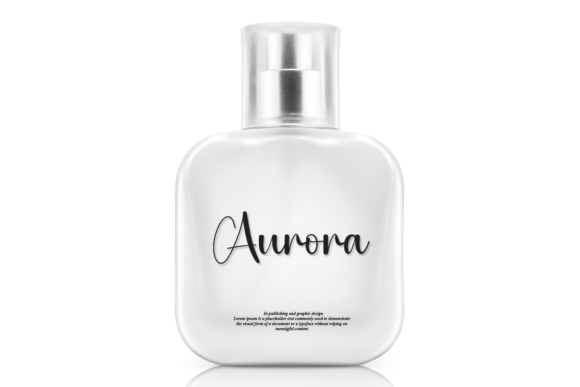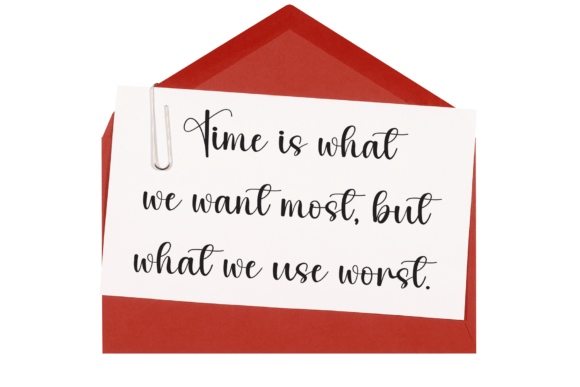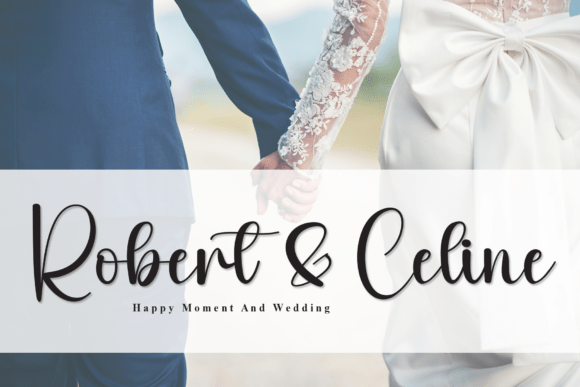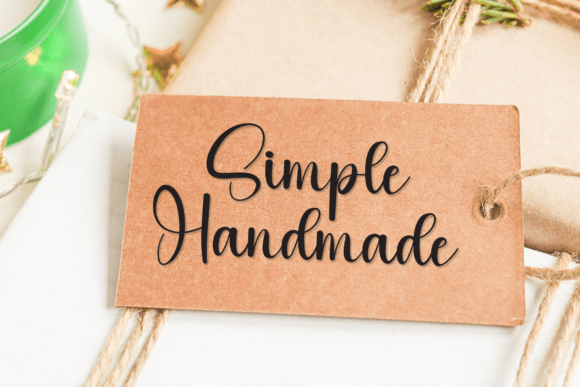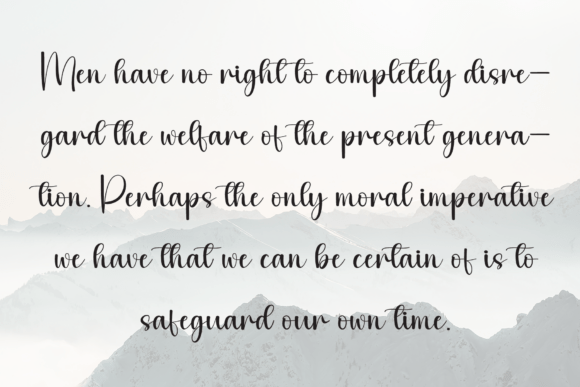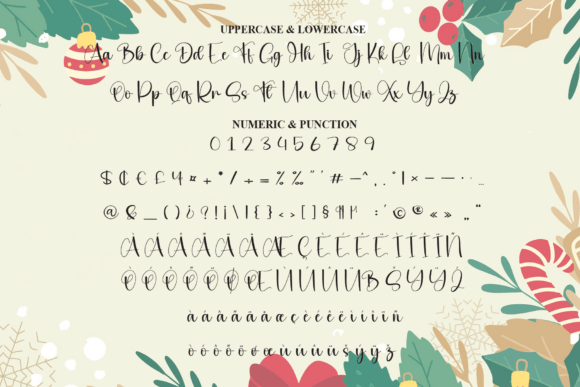
Discover the Magic of Christmas Font
As you sit by the twinkling Christmas tree, surrounded by loved ones and the soft glow of candles, you can’t help but feel a surge of creativity. The festive atmosphere is the perfect spark to ignite your imagination, and for designers, it’s the ideal time to get crafty. Perhaps you’re planning a wedding invitation, a personalized greeting card, or a social media post to spread holiday cheer. Whatever your project, you’ll want a font that captures the essence of the season – a font that’s as warm and inviting as a cup of hot cocoa on a chilly winter night.
Enter Christmas Font, a delightful handwritten script font that exudes a sweet and friendly essence. This versatile font is a valuable addition to any designer’s toolkit, breathing life into your creations and adding a whimsically fun touch to uplift any design project.
Key Features of Christmas Font
- Font Family: A festive and playful font designed specifically for Christmas-themed designs and projects.
- Unique Characteristics: The font features a range of festive elements, including snowflakes, holly leaves, and Christmas ornaments, adding a touch of whimsy and holiday cheer to designs.
Designer Review: Christmas Font
Overall, I’d say the Christmas Font is a solid choice for any holiday-themed project. ✨ The font’s festive feel is undeniable, with bold, playful characters that evoke the spirit of the season. The font is well-suited for use in promotional materials, social media graphics, and even digital signage.
The font’s character set is comprehensive, with a wide range of letters, numbers, and punctuation marks. ✨ This makes it easy to work with, as you can trust that you have everything you need to get your message across. Additionally, the font’s scalability is impressive, looking great at both large and small sizes.
- ⚠️ Limited use beyond the holiday season: While the font is perfect for Christmas and New Year’s, it may not be the best choice for general use throughout the year.
- ⚠️ Some characters may appear pixelated at small sizes: Be sure to test the font at various sizes to ensure it looks its best.
Overall, I’d give the Christmas Font 4 out of 5 stars. It’s a great choice for holiday-themed projects, but may not be the best fit for general use. With a little creativity, however, this font can add a lot of festive flair to your designs.